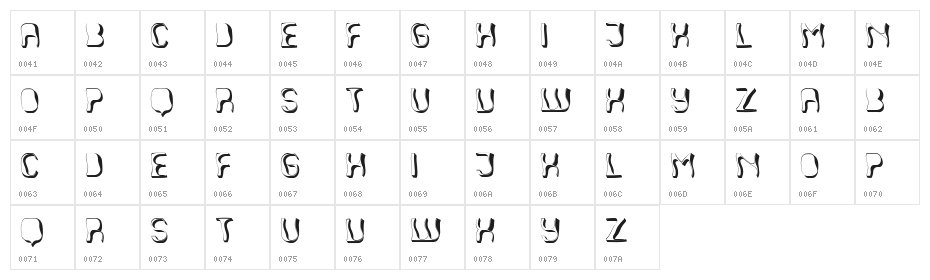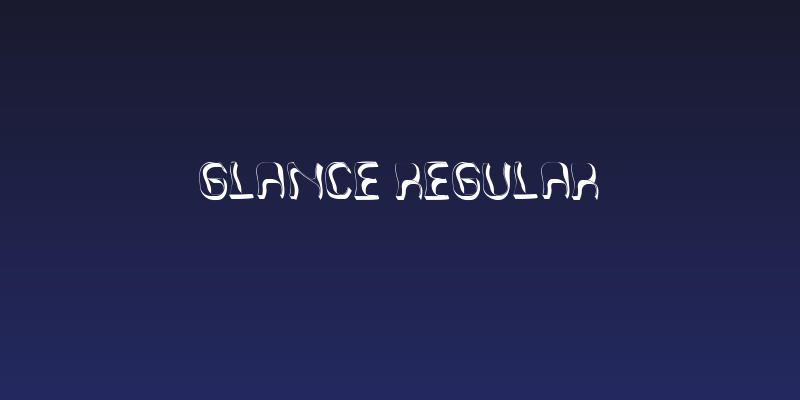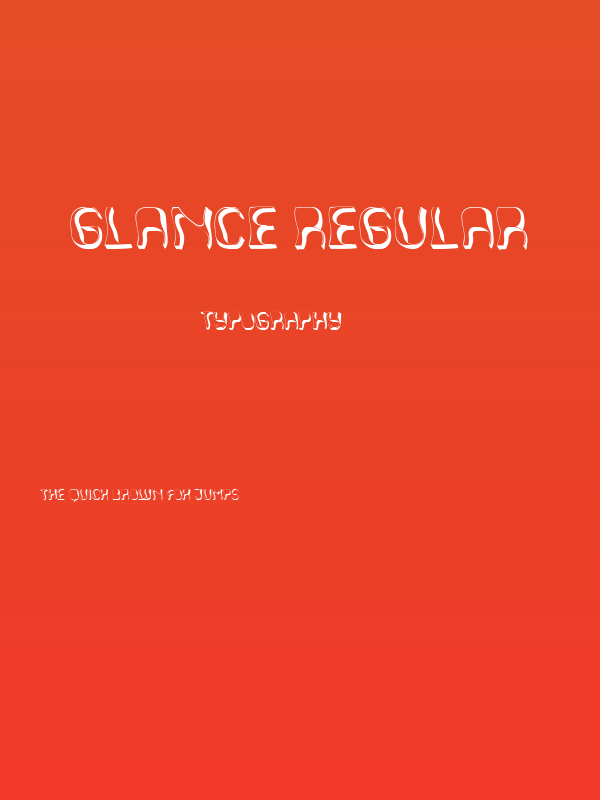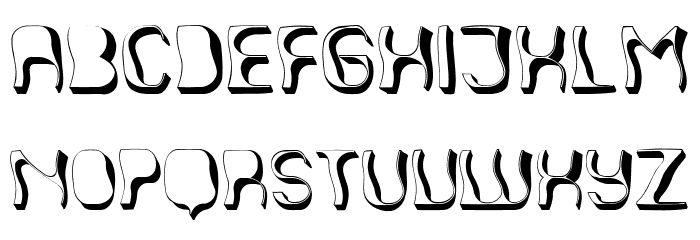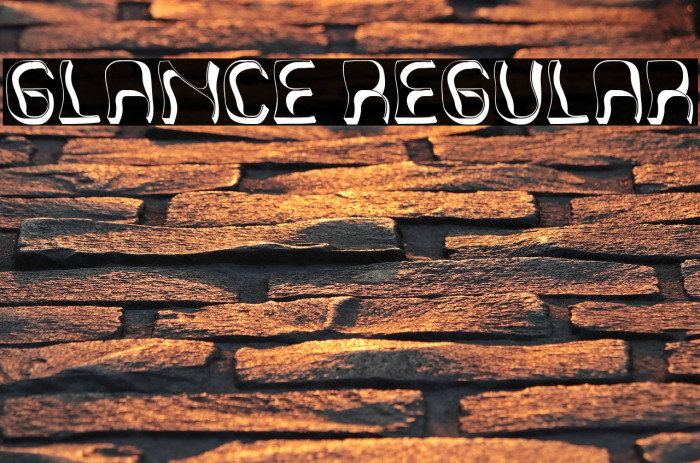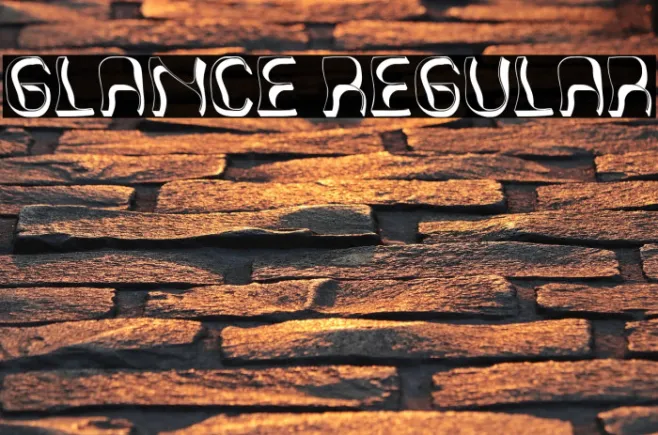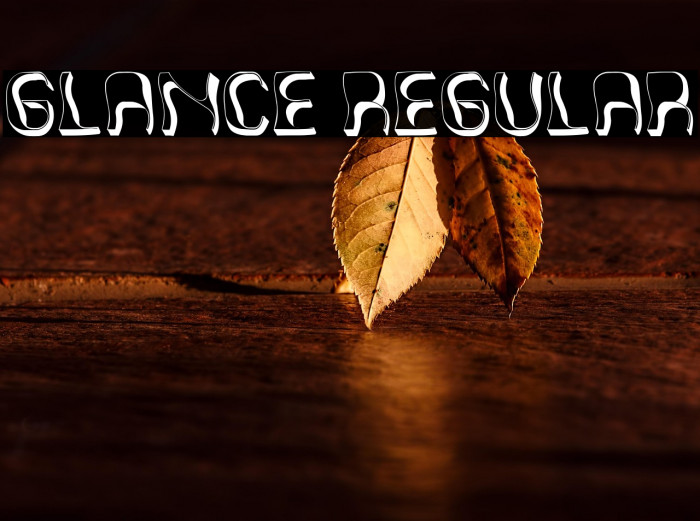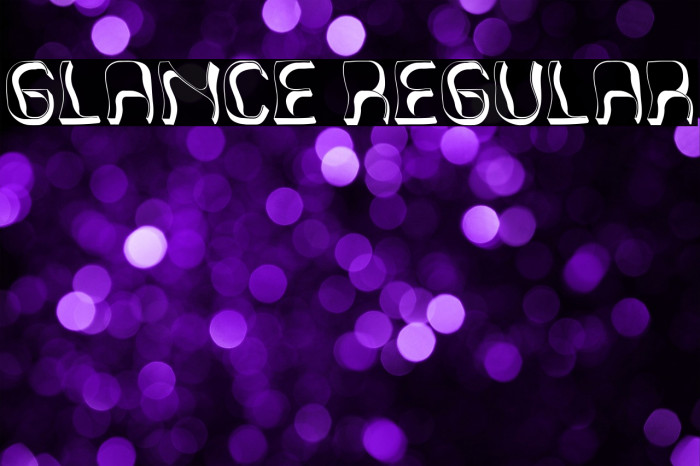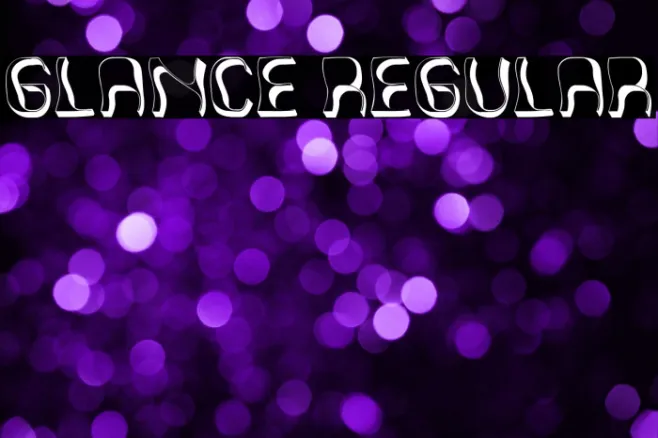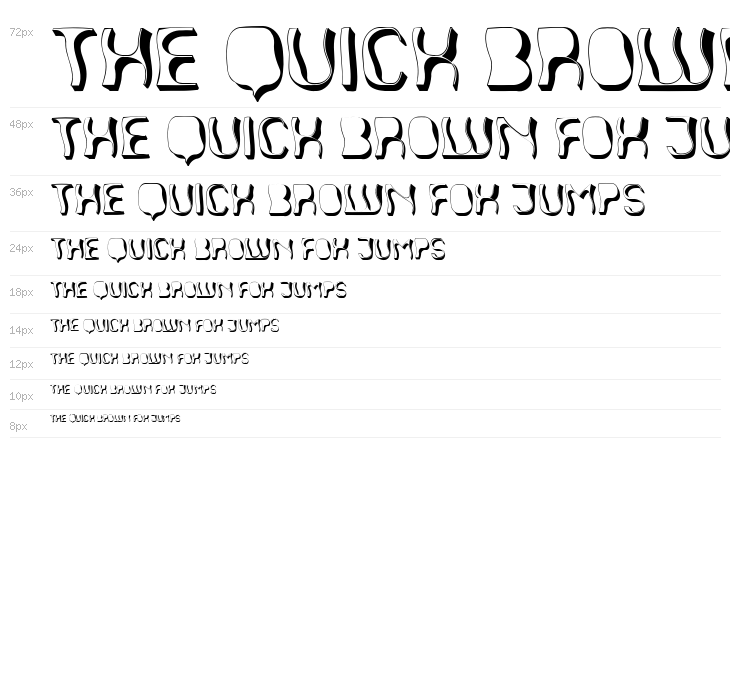
Glance Regular Font
Glance Regular Description
This font features a unique and artistic design with a bold, three-dimensional appearance. Each character is crafted with a shadow effect that gives it depth and a sense of movement. The letters have a playful, almost cartoonish quality, with rounded edges and varying stroke thicknesses that add to its dynamic look. The font maintains a consistent style across uppercase and lowercase letters, as well as numbers and special characters, making it versatile for various design needs. Its distinctive style makes it stand out, perfect for projects that require a creative and eye-catching typeface.
| Proposed Projects | Ideal for posters, logos, headlines, and any creative design projects that require a standout typeface. |